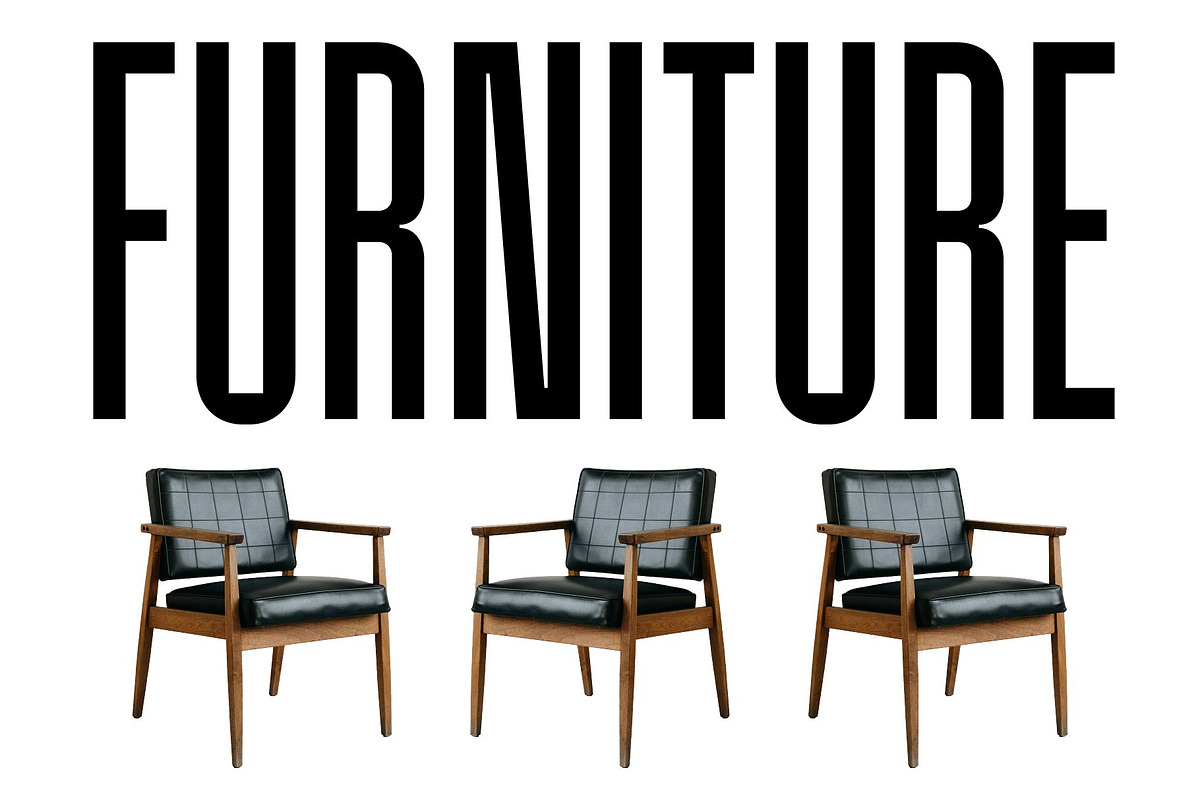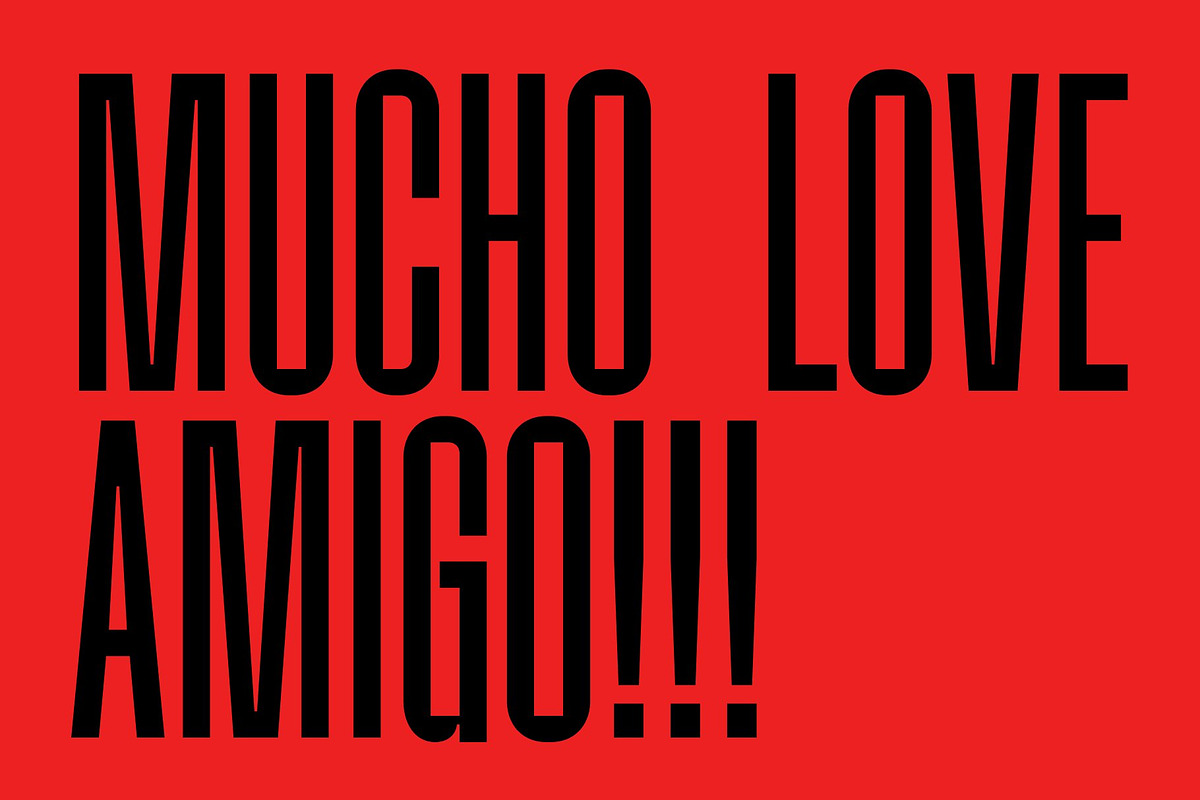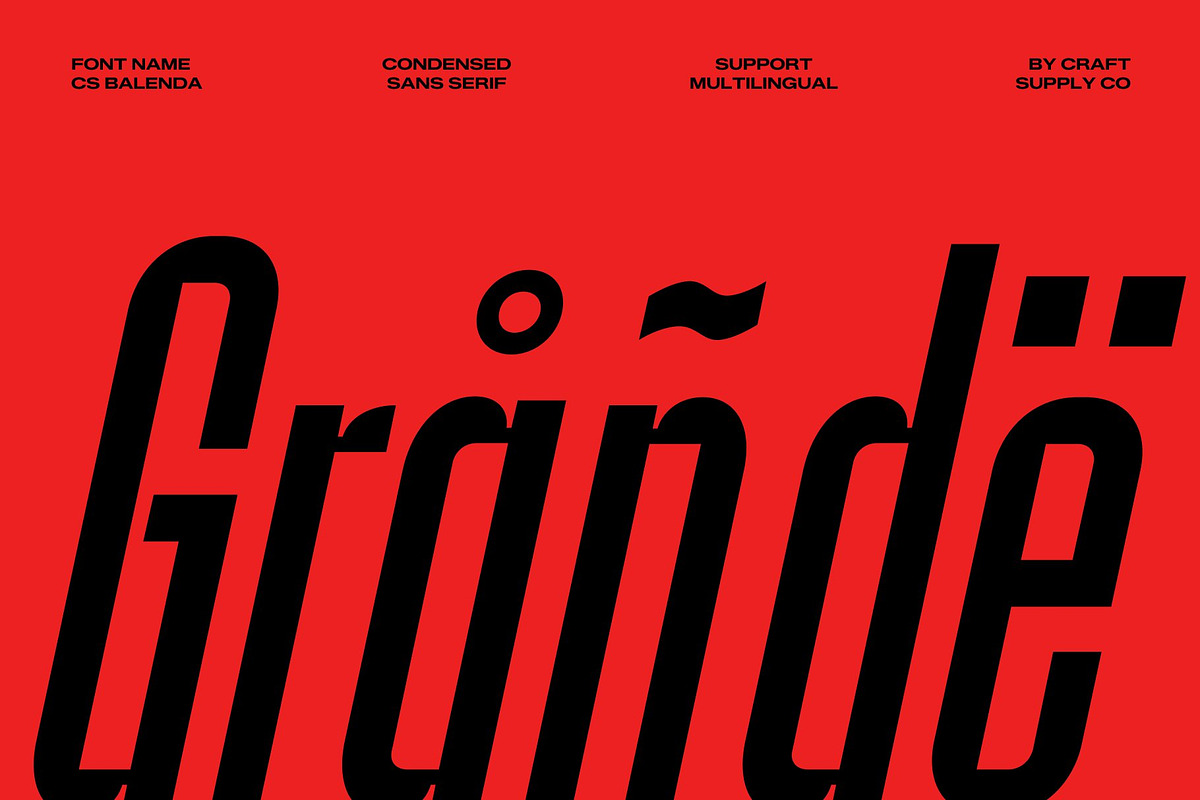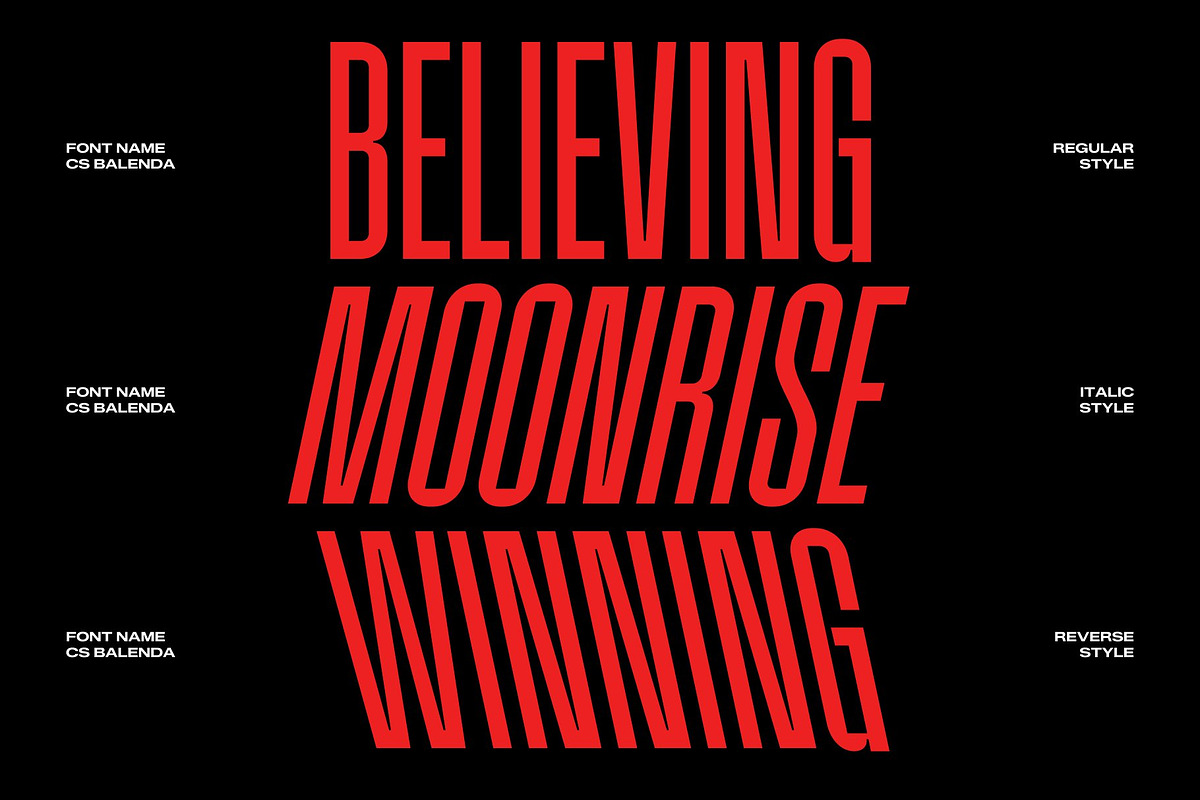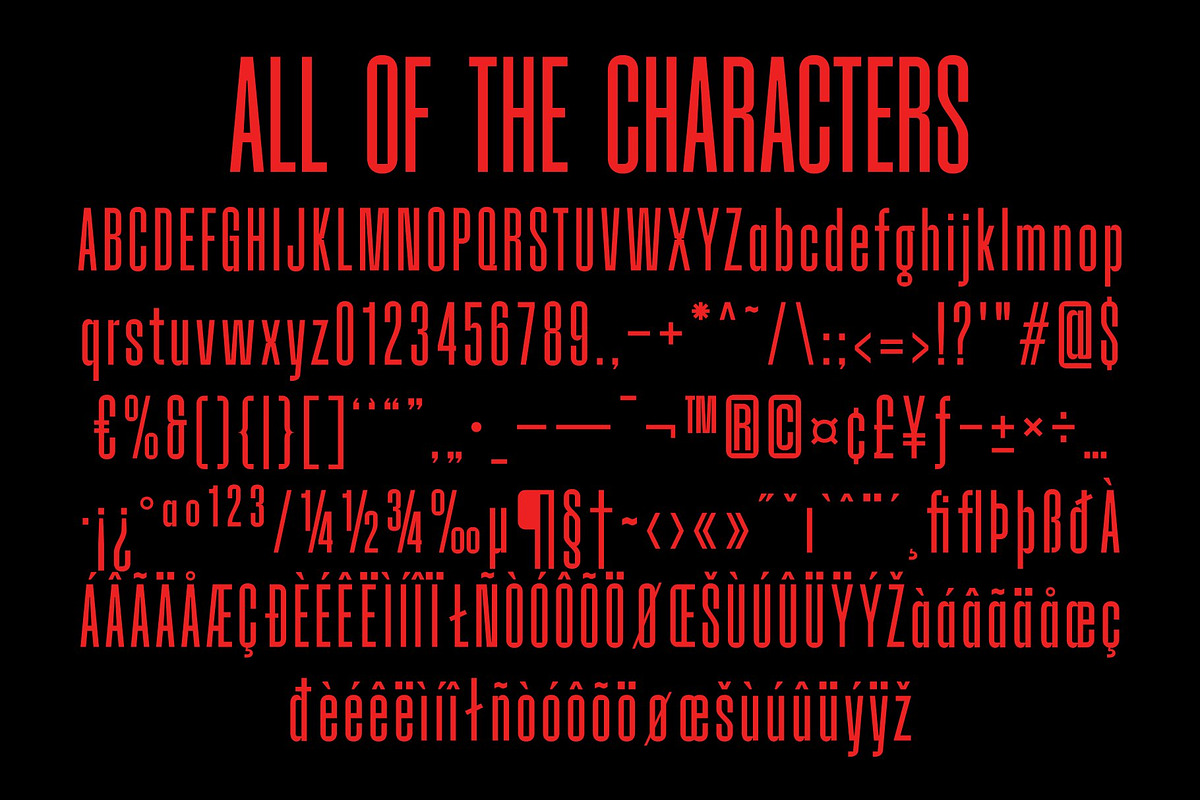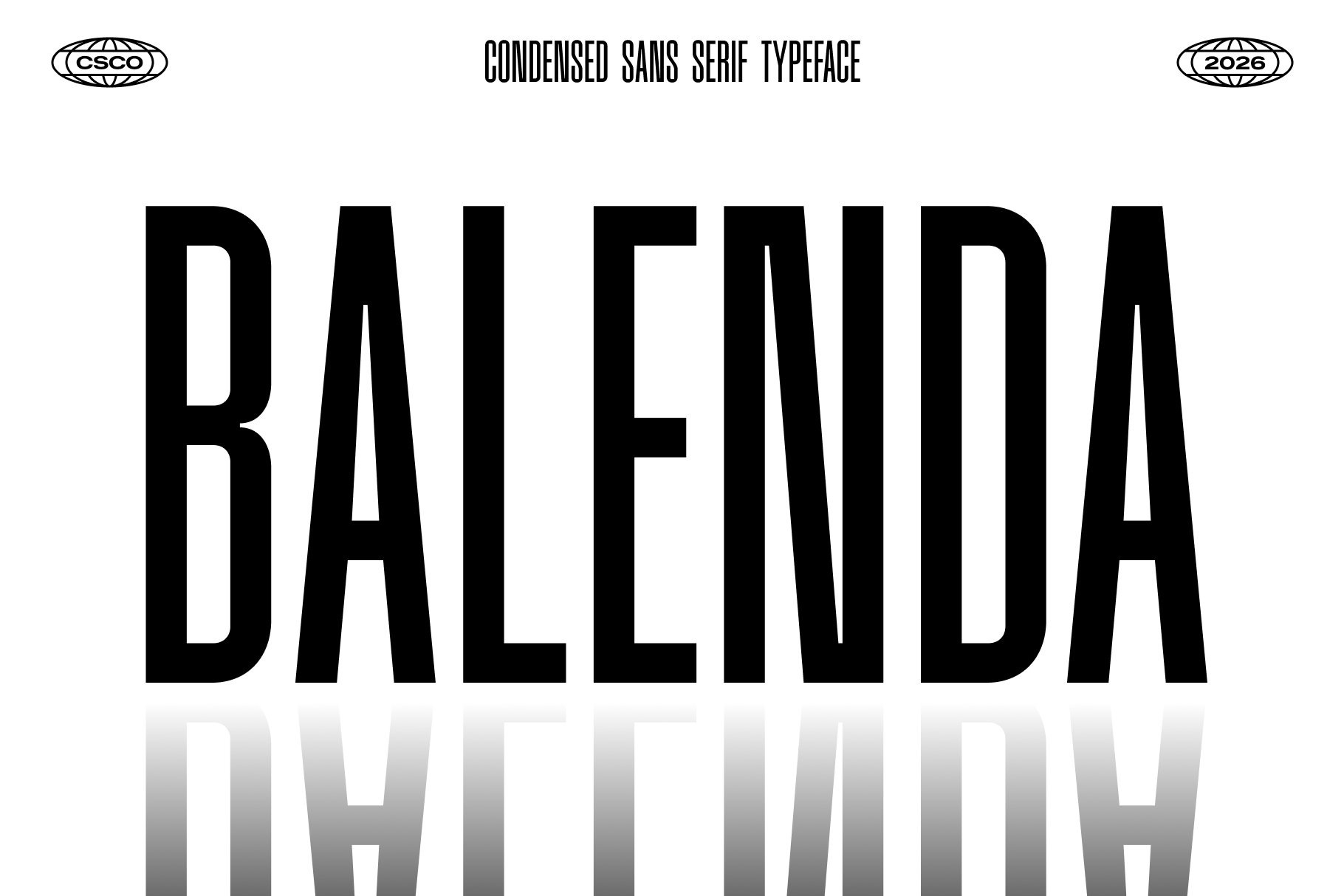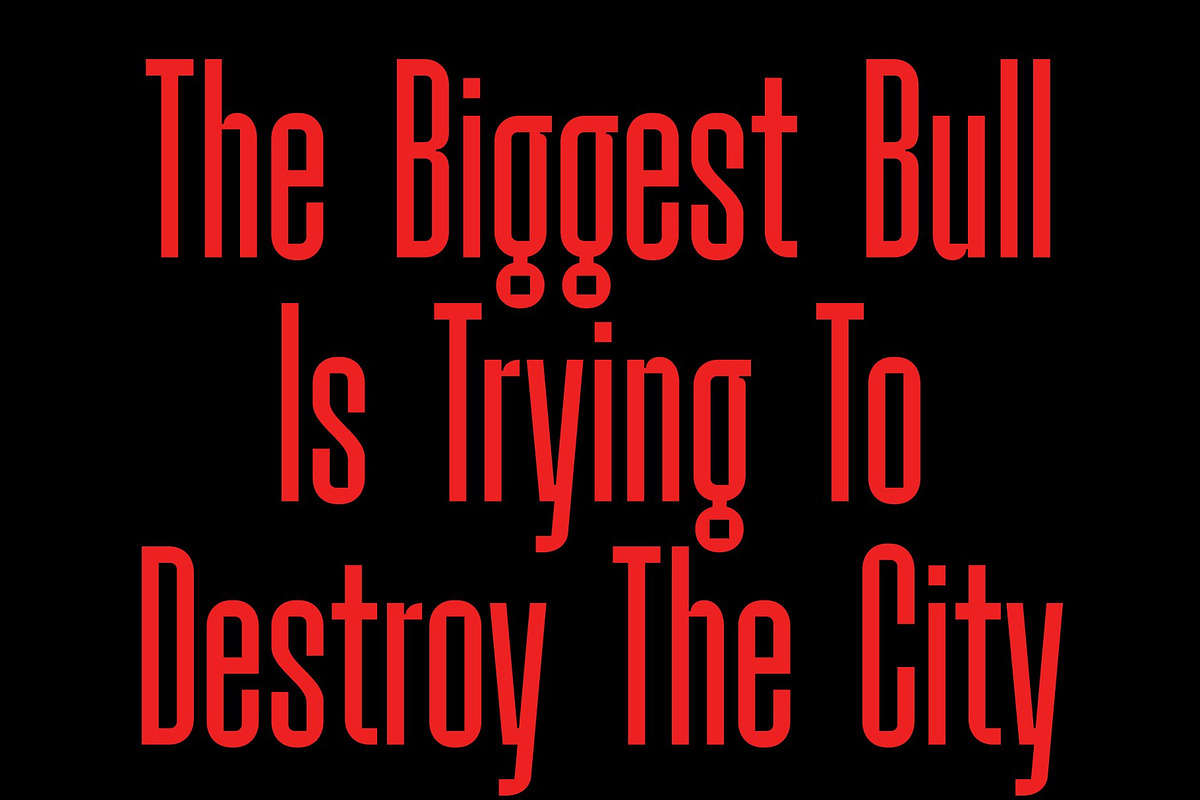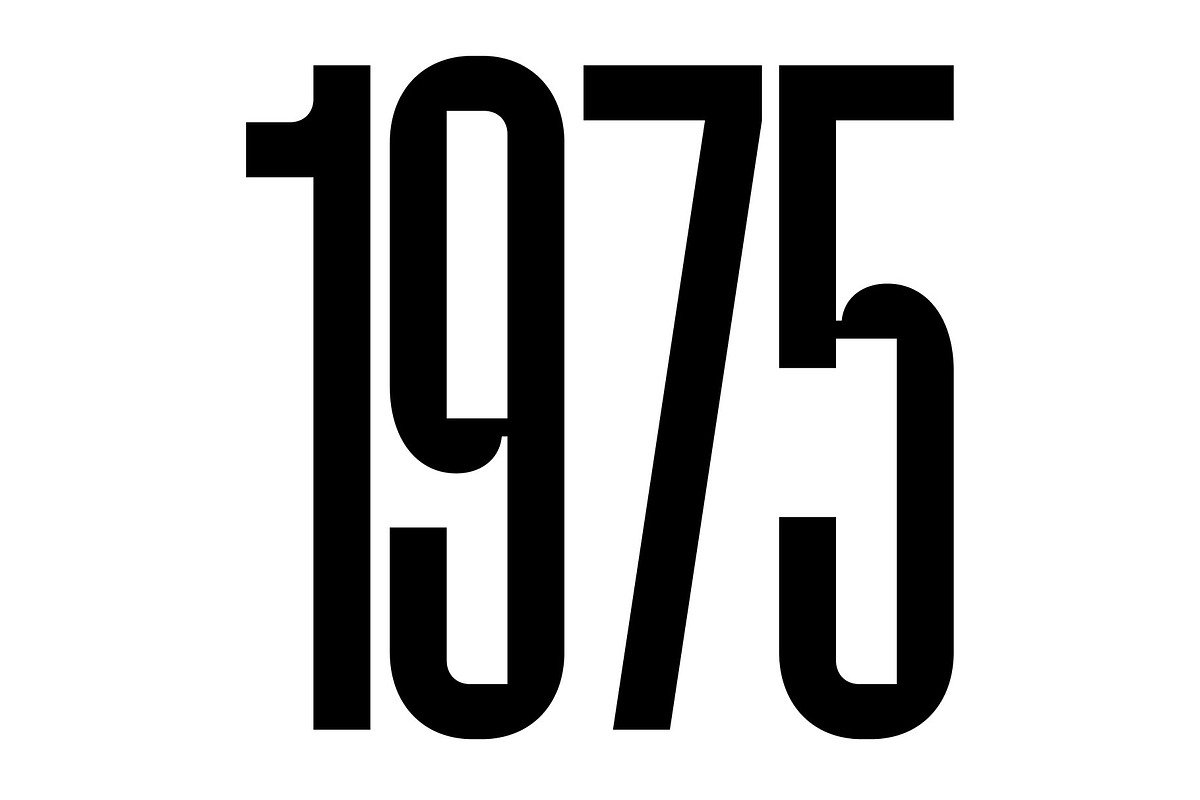
CS Balenda – Condensed Font
CS Balenda – Condensed Sans Serif Font: Where Space Meets Strength
Compact Form with Strong Presence This is a modern condensed sans serif font designed to deliver maximum impact within minimal space. Its streamlined proportions allow each character to stand tall and confident while maintaining a tight, efficient structure. This compact design makes it an excellent choice for layouts that demand clarity without sacrificing visual power.
Bold Character with Clean Precision Crafted with sharp lines and a contemporary aesthetic, this font balances boldness with precision. Its clean construction enhances readability even in dense compositions, ensuring that every word remains clear and striking. The font’s confident stance gives it a commanding presence, making it highly effective for attention-grabbing designs.
Optimized for Headlines and Display Use This font excels in headline and display settings where space is limited but impact is essential. Its condensed form allows designers to fit more text into smaller areas without losing legibility or style. Whether used in posters, banners, or digital graphics, it creates a strong visual hierarchy that immediately captures attention.
Versatile for Branding and Modern Design From branding to editorial layouts, this font adapts seamlessly across various creative applications. Its modern and assertive style makes it ideal for logos, packaging, advertising, and more. By combining readability with bold visual energy, this font empowers designers to create compositions that feel both efficient and powerful.
CS Balenda Regular
CS Balenda Italic
CS Balenda Reverse Italic